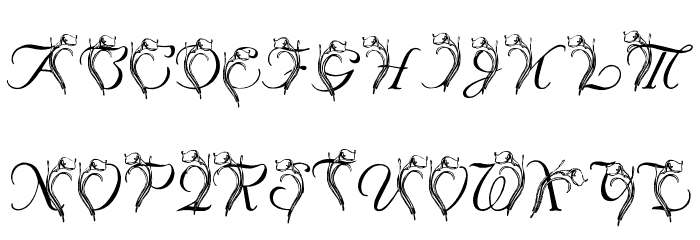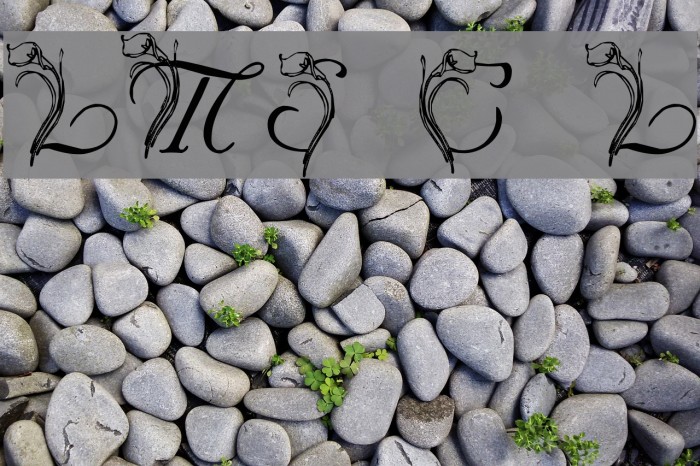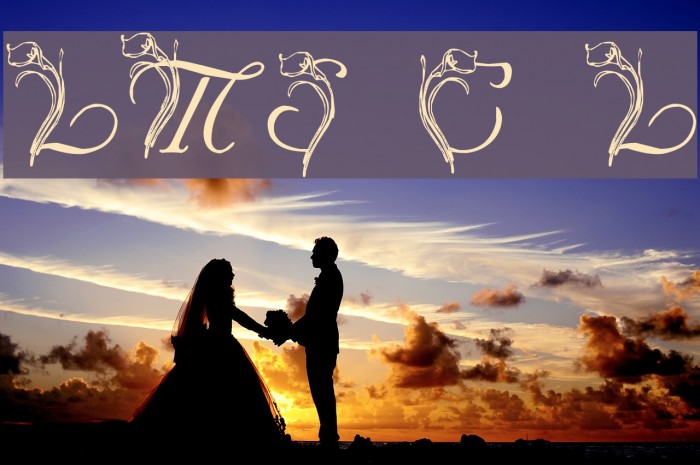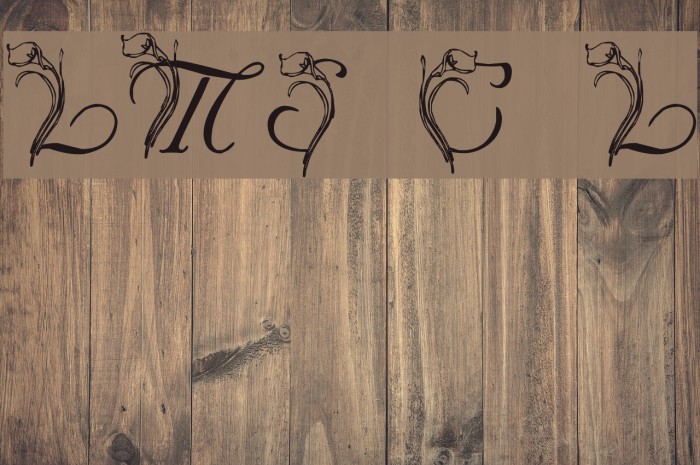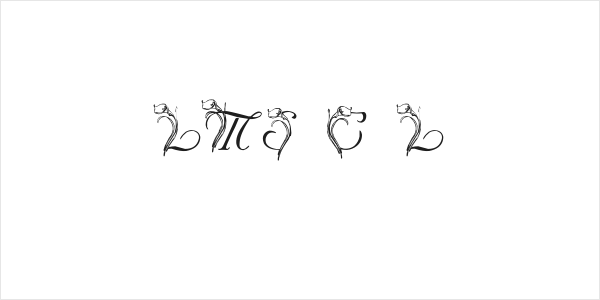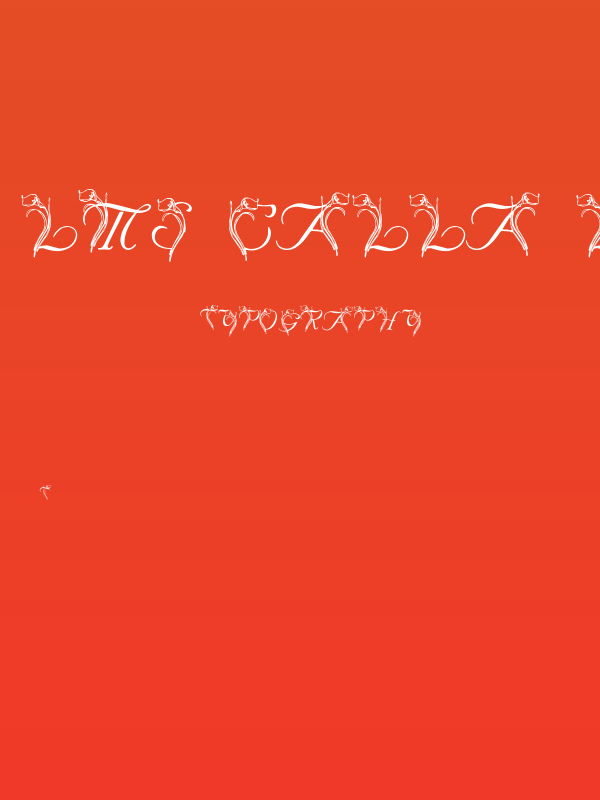
LMS Calla Lily Font
LMS Calla Lily Description
This font is an intricate and decorative typeface that incorporates floral elements into each character, creating a unique and artistic appearance. The letters are embellished with calla lily motifs, giving them an elegant and organic feel. The design is highly detailed, with flowing lines and curves that mimic the natural forms of flowers. This font is ideal for projects that require a touch of sophistication and nature-inspired aesthetics. Its elaborate style makes it suitable for use in decorative contexts where visual impact is important.
| Proposed Projects | Ideal for wedding invitations, greeting cards, botanical-themed designs, and artistic posters. |